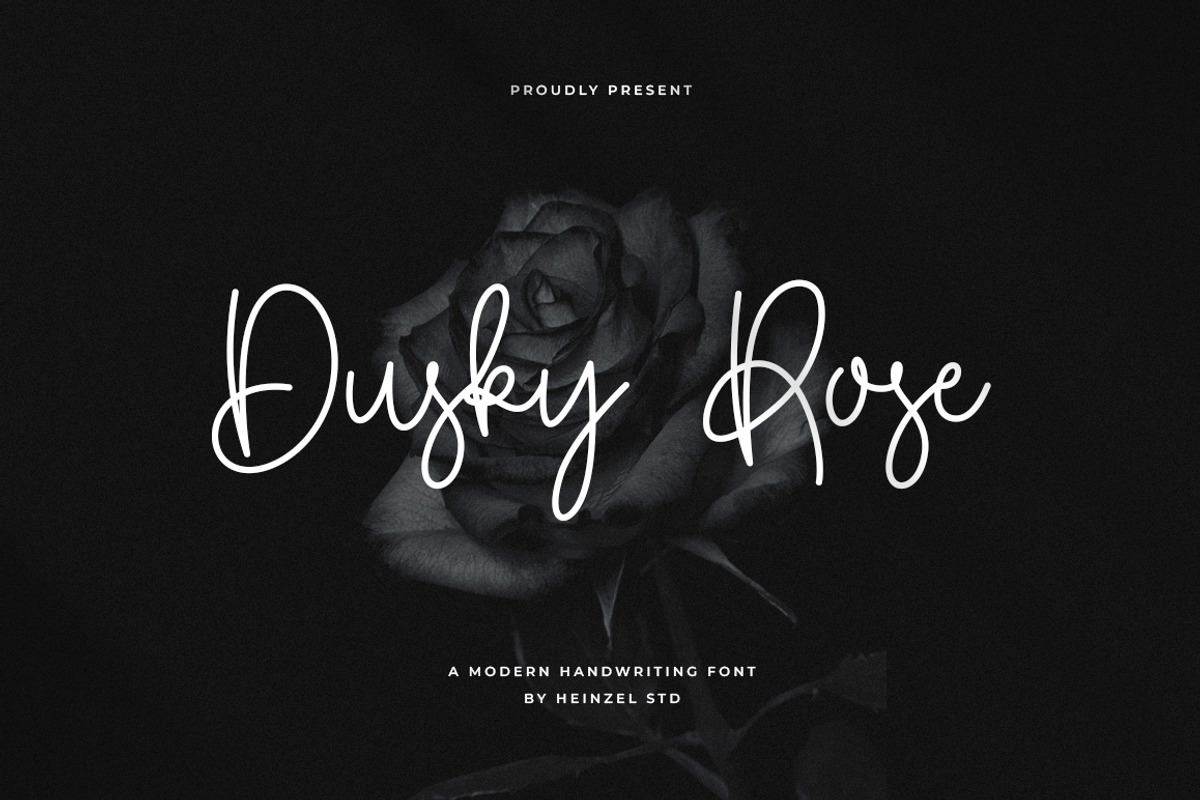
Dusky Rose Handwriting Font Free Download
Dusky Rose Handwriting Font Free Download is a soft and graceful handwritten typeface that brings elegance, warmth, and authenticity to your designs. With its natural curves and subtle charm, this font is ideal for wedding invitations, lifestyle branding, greeting cards, social media posts, and romantic product packaging.
The handwritten style of Dusky Rose captures the feeling of a personal note—delicate yet expressive, casual yet refined. Whether you're designing feminine logos, journaling content, or heartfelt quotes, this font adds a gentle, emotional touch.
Designers love Dusky Rose for its balance of sophistication and sincerity, making it perfect for both digital and print use. Want to give your designs a tender, handwritten feel? Download Dusky Rose Handwriting Font Free Download and let your typography bloom with romance and personality.